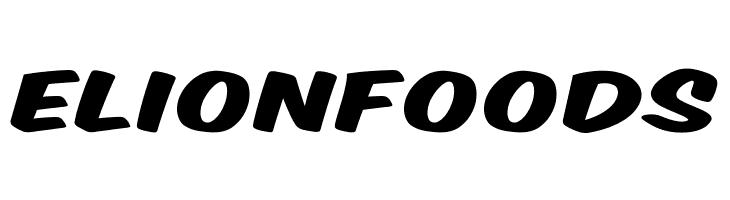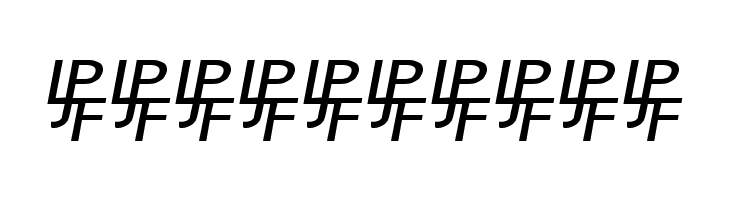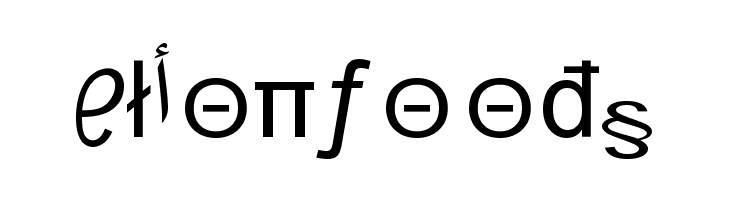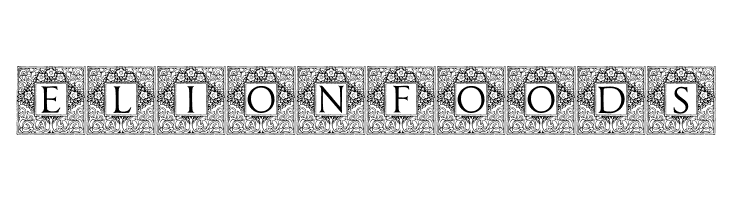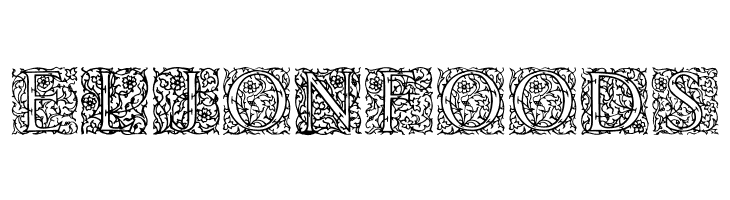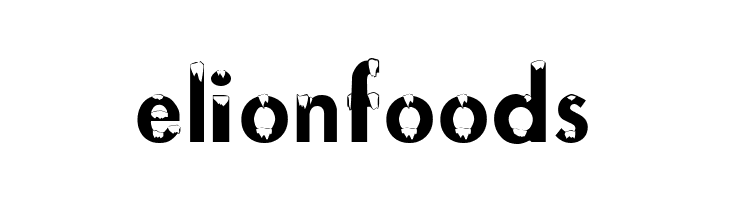
A bold, playful font with wide, rounded letters and a dynamic slant.
An ornate, decorative font with intricate patterns and vintage flair.
A decorative font with bold uppercase letters framed by intricate floral designs.
An artistic and ornamental font with elongated, curved strokes and a fluid design.
An ornate, arabesque-style font with intricate decorative patterns.
A bold, decorative serif font with boxed uppercase letters and high contrast strokes.
An ornate and decorative font with high contrast and intricate design.